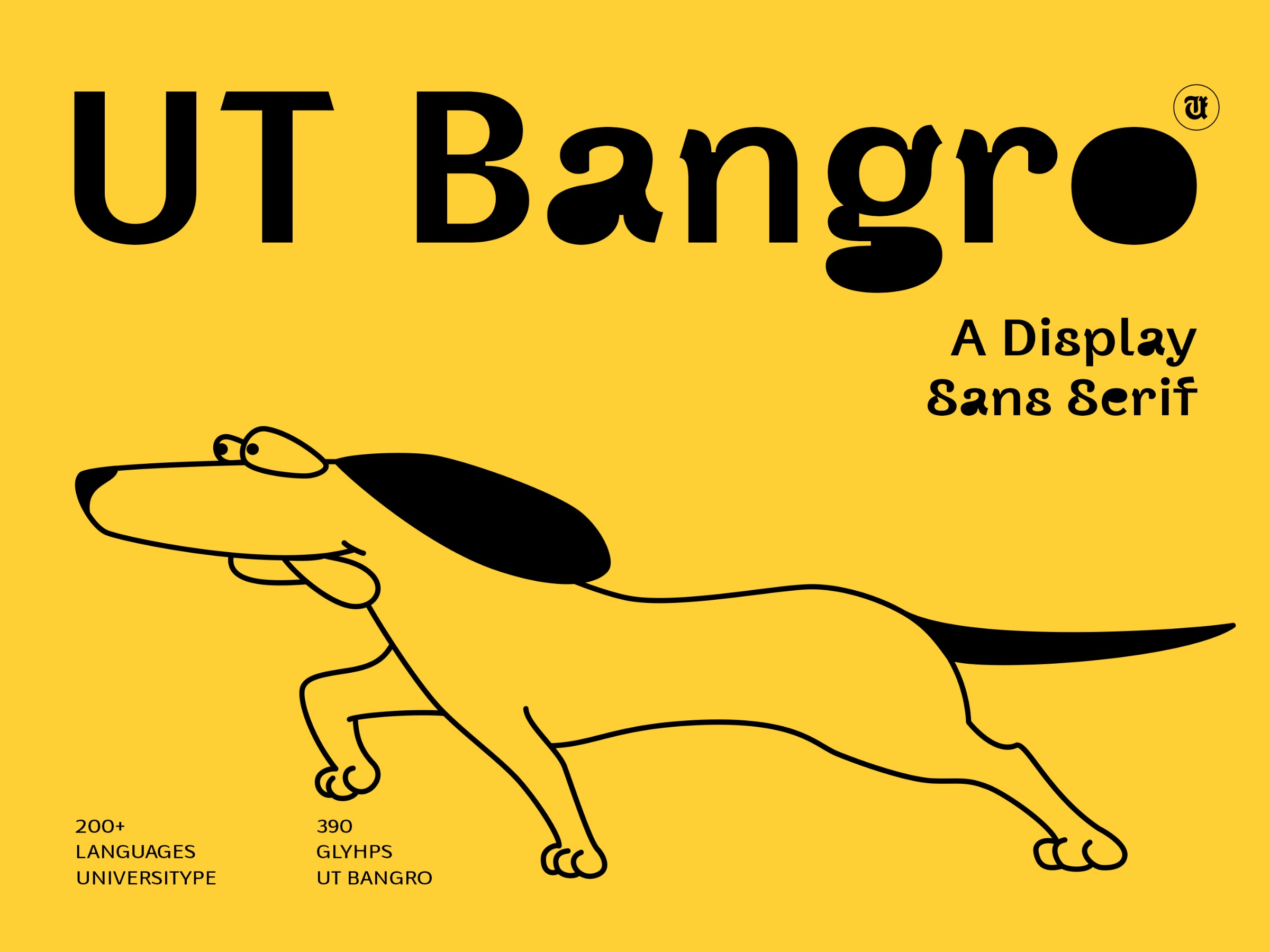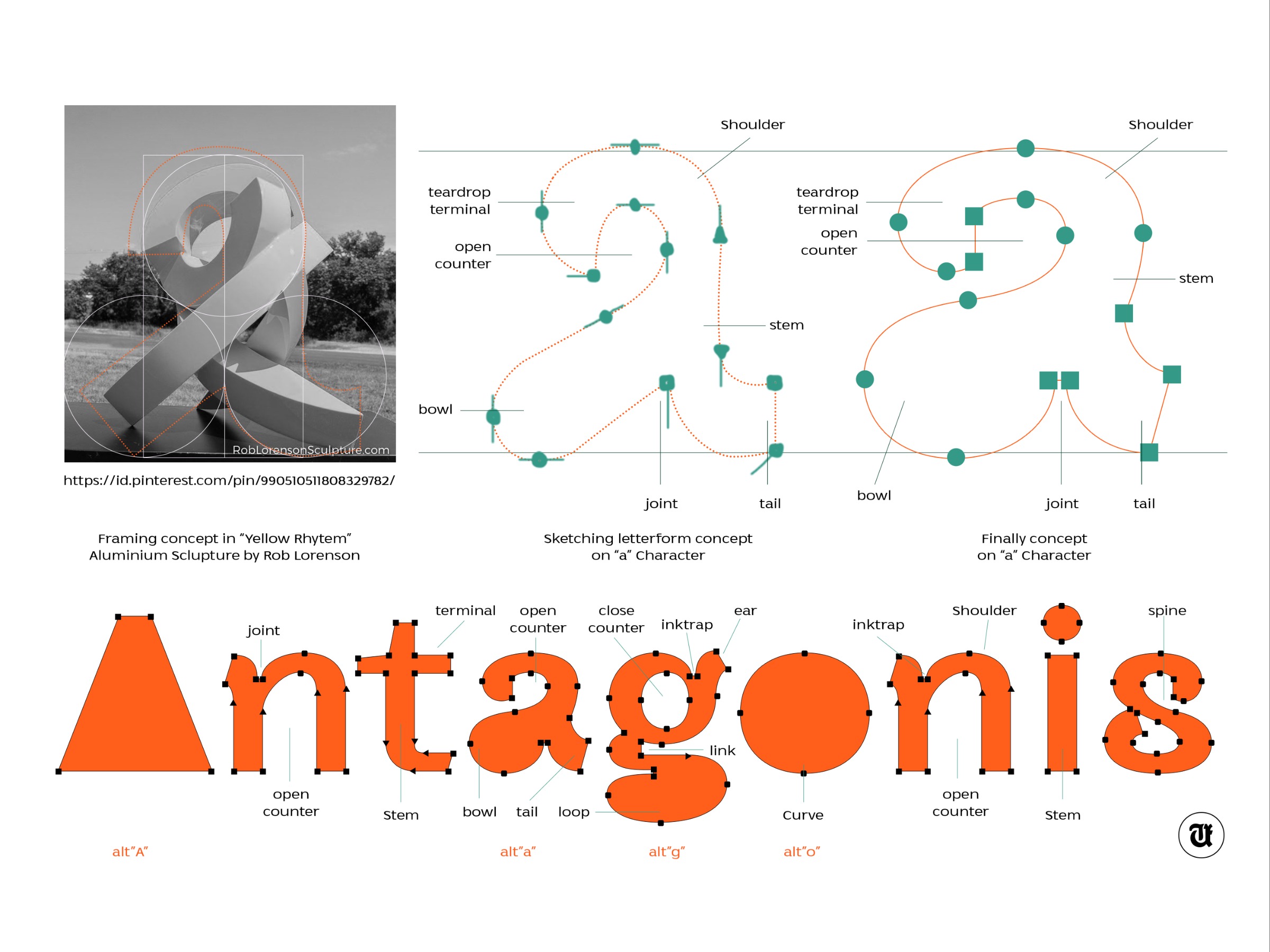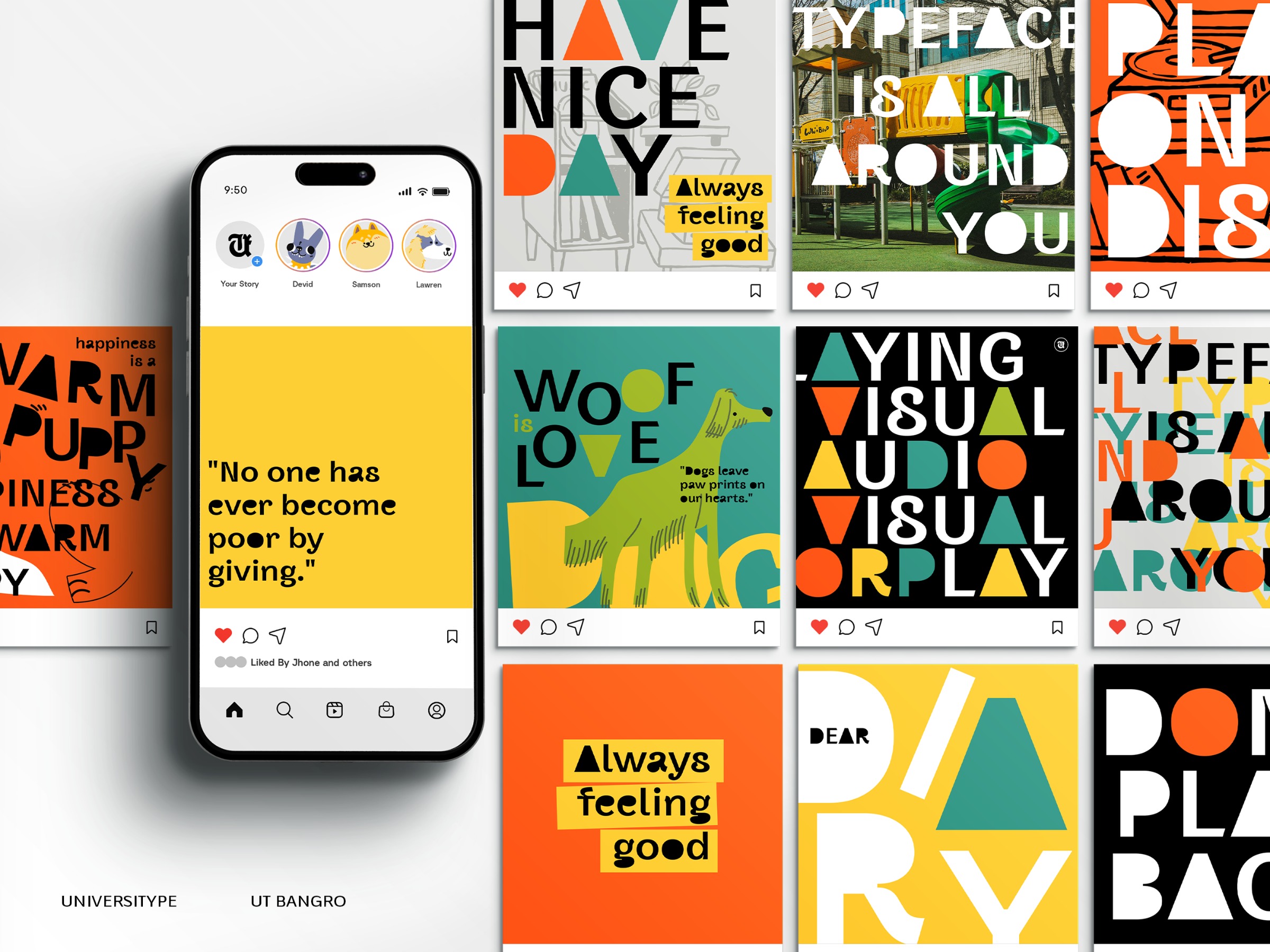
UT Bangro - A Bold Font with Character That Move
UT Bangro - a bold display sans serif that combines playful energy with confident structure. Every curve, notch, and terminal has been carefully crafted.